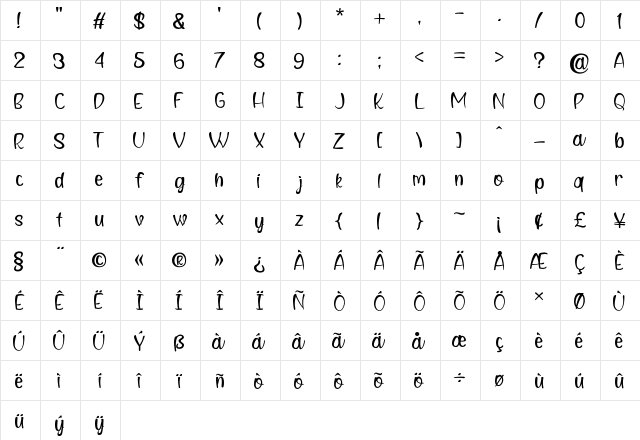
Wilson Richard - Personal Use Regular
| Foundry | Cris Designs |
| Designer | Cris Designs |
Design Context for Wilson Richard - Personal Use Typeface
Wilson Richard - Personal Use takes a measured approach to typography — its balanced proportions and neutral character make it a reliable workhorse for both digital and print work.